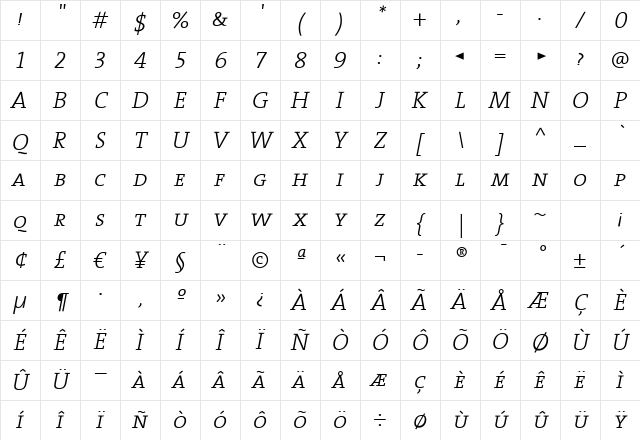
TheSerif Light Italic
TheSerif Family
Design Context for TheSerif
TheSerif carries the refined structure of traditional serif typography, with bracketed terminals and considered proportions that communicate credibility and craft. The slanted form adds forward momentum and visual energy. Its slender proportions lend an understated elegance to any composition.
Pro Tip: Use TheSerif with generous line-spacing for the most refined reading experience - its light weight benefits from room between lines.